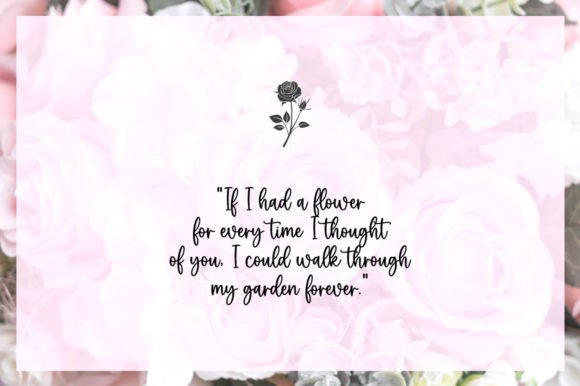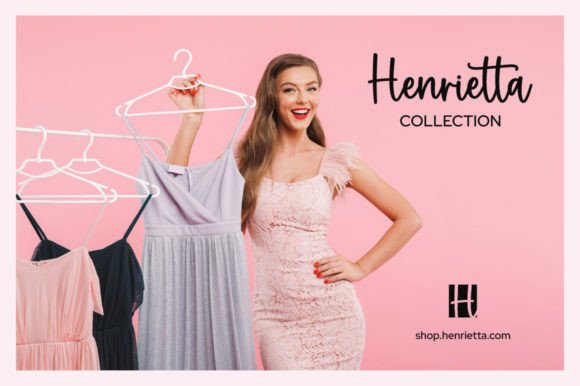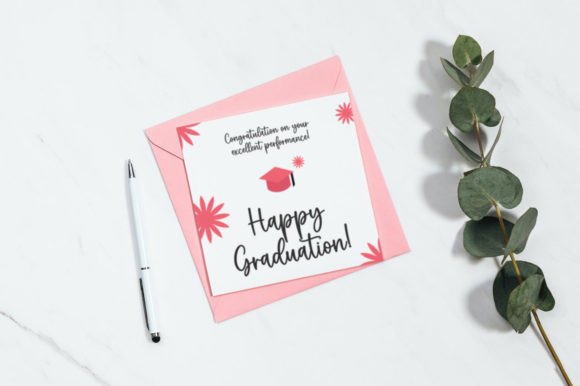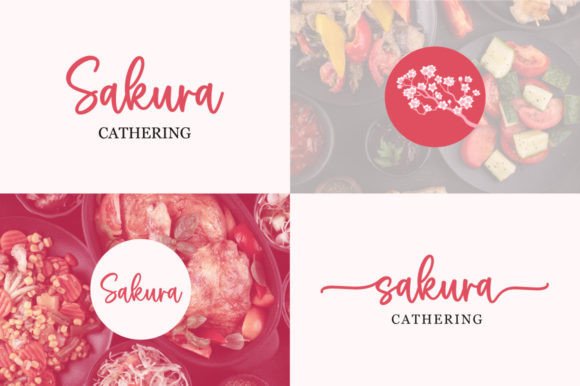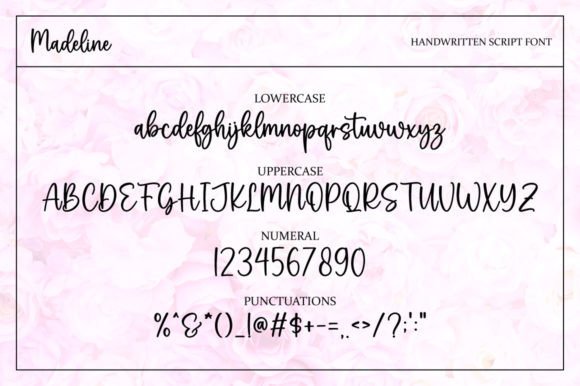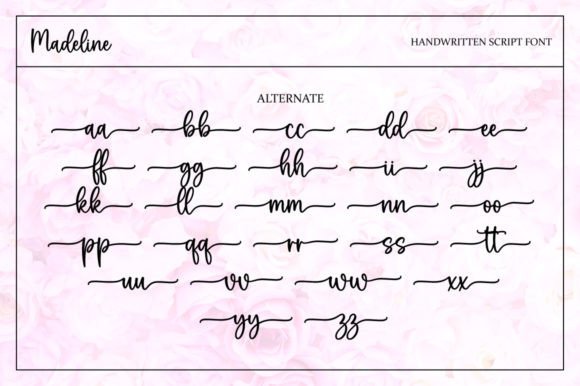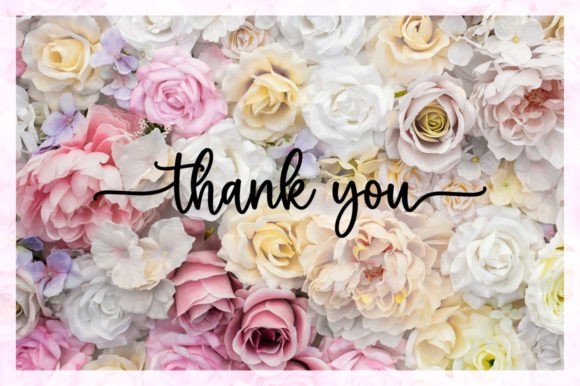
Madeline Font
About Madeline Font
“Madeline” is a lovely and timeless handwritten font that shines as an excellent choice for creating eye-catching logos, branding materials, and quotes. This font’s beauty lies in its simplicity and elegance, making it a versatile option for various design applications.
One of the standout features of “Madeline” is its ability to convey a sense of charm and timelessness. The handwritten style of the font adds a personal and authentic feel to your text, making it perfect for projects that aim to evoke a sense of elegance and beauty.
The fact that “Madeline” is PUA-encoded adds a layer of convenience for designers. This means you can easily access all of the unique glyphs and swashes that come with the font, allowing you to customize and enhance your designs with ease.
Visualize using “Madeline” for your logo design, and notice how it imparts a touch of elegance and timelessness to your brand’s image. Picture incorporating this font into your branding materials, creating a cohesive and visually appealing identity. When you choose “Madeline” for your projects, you’re selecting a font that elevates them, making them more memorable and captivating.
In conclusion, “Madeline” is more than just a font; it’s a design asset that brings timeless elegance to your creative projects. Its handwritten style and PUA encoding make it a versatile choice for a wide range of applications. Consider “Madeline” as your go-to font for creating eye-catching logos, branding materials, and quotes that leave a lasting and elegant impression.